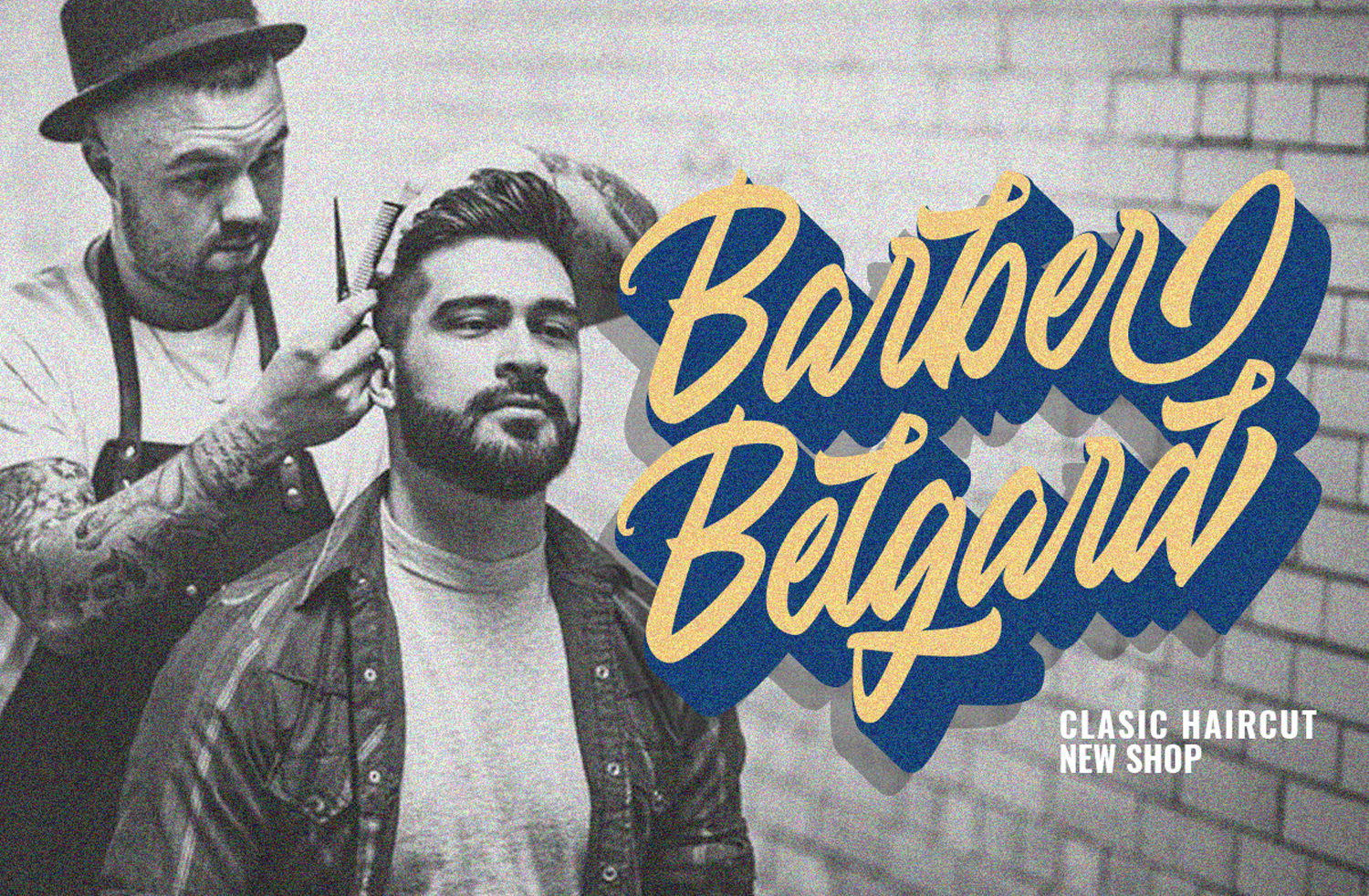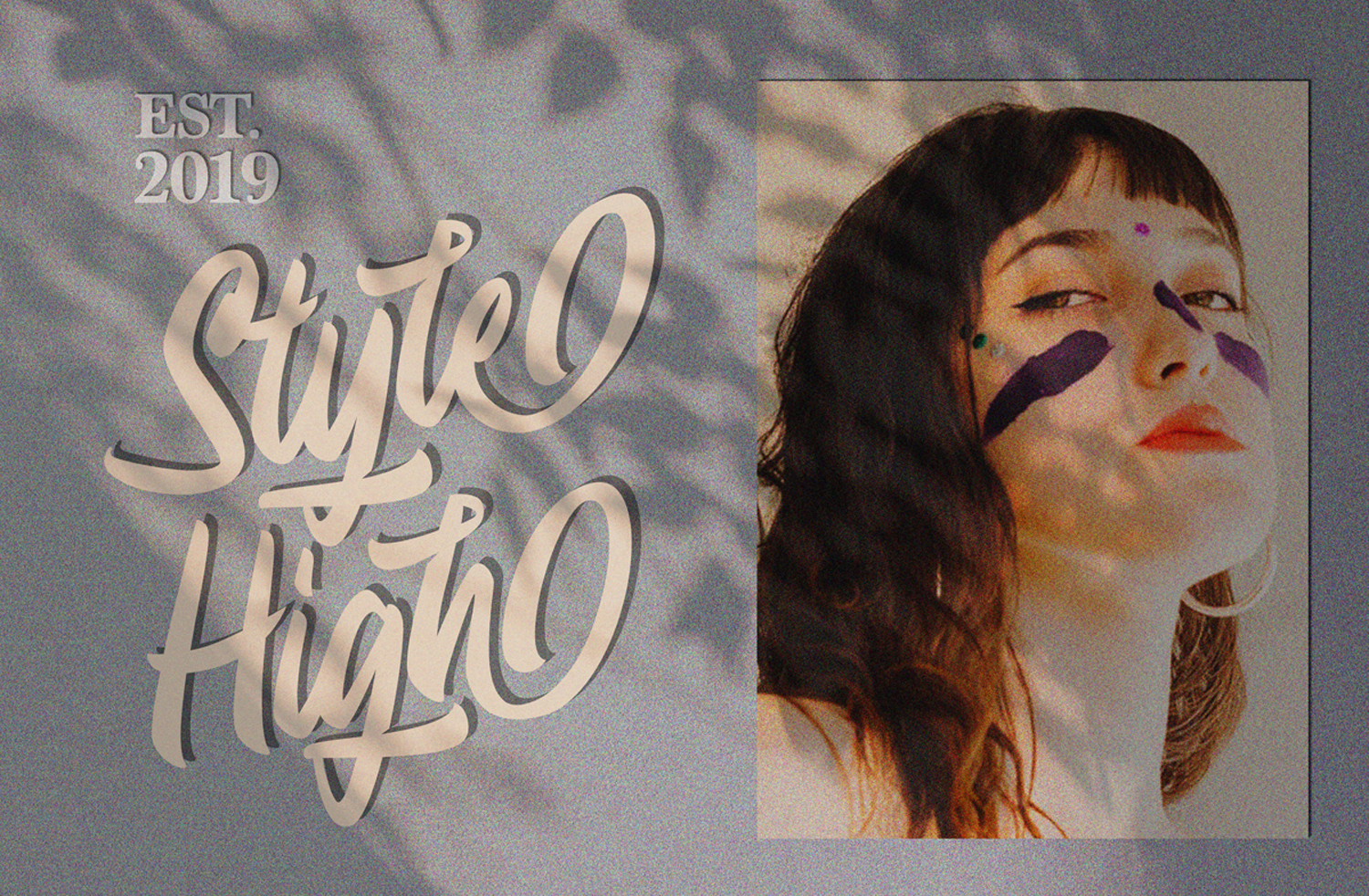
Modster Script Free Demo
Modster Script Free Demo is a collective inspired by the urban style created from the style of hand-lettering with love. The font comes with a set of styles, alternatives, present an extra shadow. This font is ideal for branding, logos, handwritten quotes, product packaging, headers, posters, merchandise, social media books/cover titles, special events, etc.